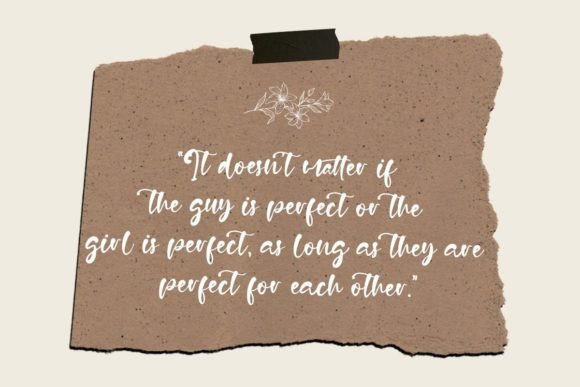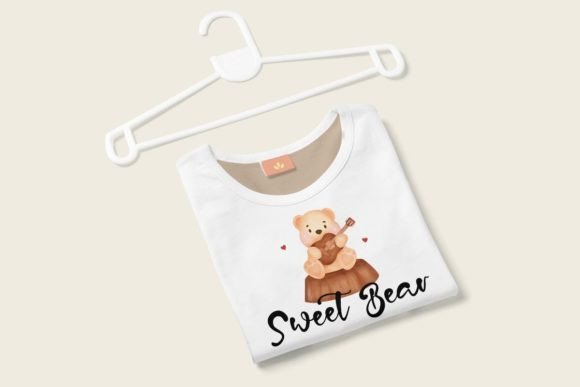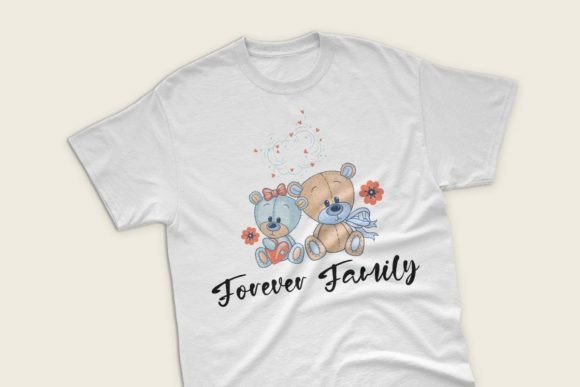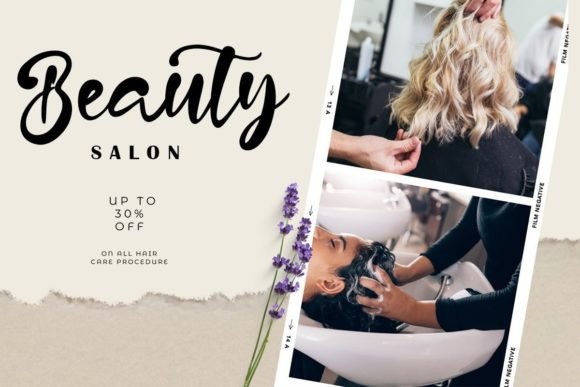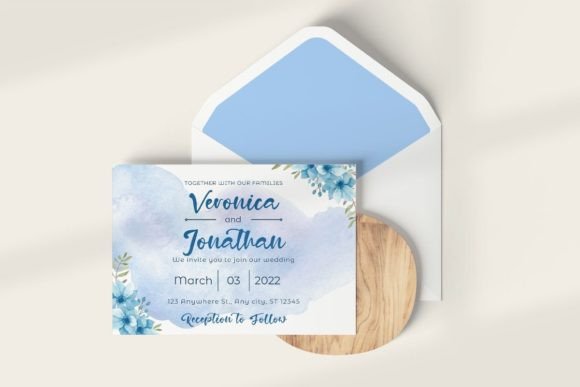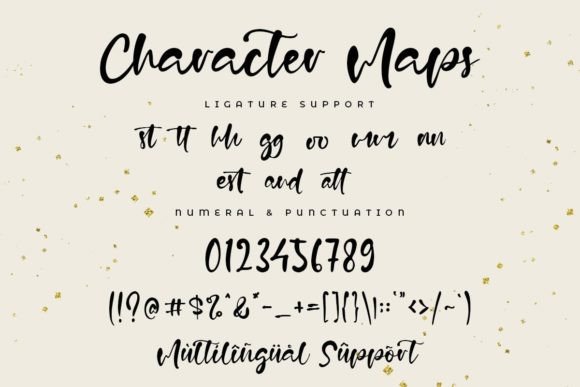
Dundleson Font: Elevate Your Designs with a Unique Handwritten Style
In the world of design, fonts play a crucial role in conveying the message and aesthetic of a brand or product. With the vast array of fonts available, it can be challenging to find one that stands out from the crowd. However, if you’re looking for a beautiful handwritten font that will make your work shine, look no further than Dundleson. This stunning font is designed to add a personal touch to your designs, making it perfect for product packaging, branding projects, and more.
The Unique Charm of Dundleson
Dundleson is a beautifully crafted handwritten font that boasts a unique and eye-catching shape. Its distinctive style is sure to capture the attention of your audience and leave a lasting impression. Whether you’re working on a logo, brochure, or packaging design, Dundleson is the perfect choice to add a touch of personality and whimsy. The font’s elegant and flowing lines will elevate your designs, making them stand out in a crowded market.
Dundleson is a versatile font that is perfect for a wide range of design applications. Whether you’re a professional designer or a crafter, this font is sure to become a favorite in your collection. Use it to create stunning product packaging, eye-catching branding materials, or beautiful digital designs. The possibilities are endless with Dundleson, and its unique style is sure to inspire your creativity.
Why Choose Dundleson?
So, why choose Dundleson over other fonts? Here are just a few reasons why this font stands out:
- Unique and eye-catching shape: Dundleson’s distinctive style is sure to capture the attention of your audience and leave a lasting impression.
- Perfect for product packaging and branding projects: Dundleson is designed to add a personal touch to your designs, making it perfect for product packaging, branding projects, and more.
- Versatile and easy to use: Whether you’re a professional designer or a crafter, Dundleson is easy to use and can be applied to a wide range of design applications.
Tips for Using Dundleson
To get the most out of Dundleson, here are a few tips to keep in mind:
- Experiment with different sizes and colors: Dundleson looks great in a variety of sizes and colors, so don’t be afraid to experiment and find the perfect combination for your design.
- Pair it with other fonts: Dundleson pairs well with other fonts, so try combining it with a bold font for headings or a clean font for body text.
- Use it to add a personal touch: Dundleson is designed to add a personal touch to your designs, so don’t be afraid to get creative and use it to add a unique element to your work.